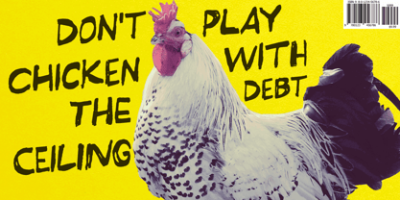
Laginchy Font is perfect for creative studio branding, artistic portfolio presentations, contemporary art gallery exhibitions, modern design agency identities, innovative advertising campaigns, expressive fashion label marketing, dynamic creative workshops, artistic expression platforms, bold visual communication projects, and imaginative cultural event promotions. Its expressive creative character makes it ideal for projects requiring artistic innovation and contemporary creative authenticity.
What makes Laginchy Font exciting is its dynamic embodiment of creative expression and artistic innovation with flowing letterforms and imaginative characteristics that capture the essence of contemporary artistry and creative design excellence. The font features expressive proportions, artistic-inspired details, and creative character construction that create authentic artistic atmosphere and contemporary appeal. Its imaginative personality brings creativity and innovation to contemporary designs while maintaining the clarity essential for artistic communications and creative presentations. The carefully crafted expressive elements ensure visual artistry while preserving the distinctive character that embodies the essence of creative innovation and artistic excellence.
Laginchy Font comes in multiple creative variations including Light, Regular, Medium, Bold, and Artistic styles. Each family member maintains the distinctive creative character while offering comprehensive flexibility for artistic typography and creative brand system development. The complete font family includes alternate characters, artistic symbols, and expressive decorative elements that provide extensive tools for creating immersive creative design experiences and authentic artistic brand storytelling.
Whether you're developing creative brands, artistic organizations, or innovative design projects, Laginchy Font Free Download provides the expressive authenticity needed to communicate with artistic audiences and creative professionals who appreciate contemporary innovation and artistic expression excellence. The font's creative appeal resonates with artists, designers, and creative professionals seeking authentic artistic credibility and contemporary sophistication. Its comprehensive character set includes artistic symbols and creative marks, making it perfect for creating complete creative brand systems and memorable artistic storytelling across diverse creative applications and expression-focused design projects that celebrate artistic innovation and contemporary creative excellence.